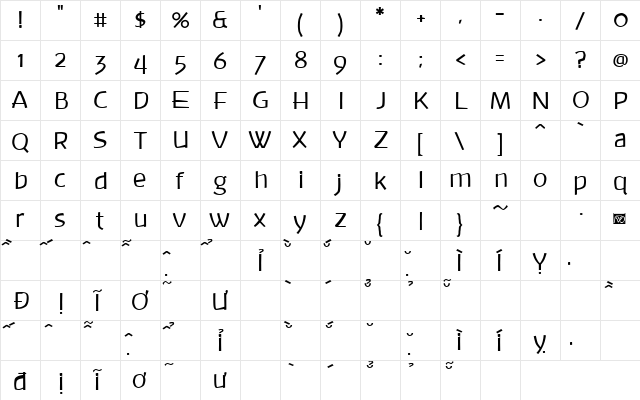
VfFree36 Regular
Design Context for VfFree36 Typeface
VfFree36 takes a measured approach to typography — its balanced proportions and neutral character make it a reliable workhorse for both digital and print work.